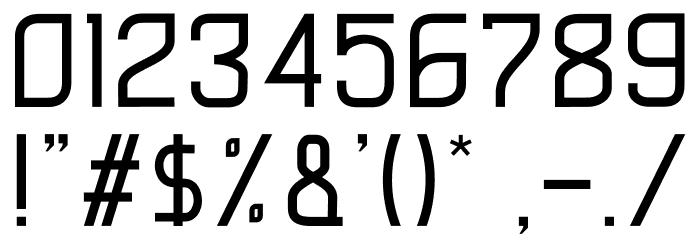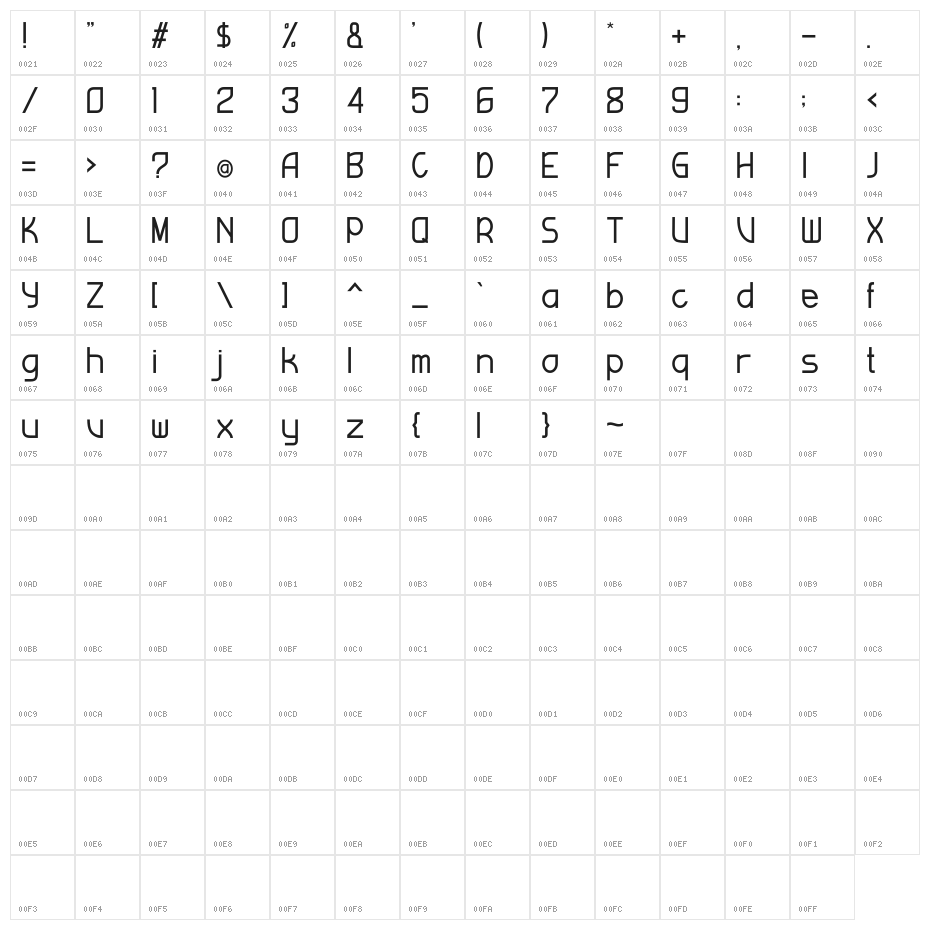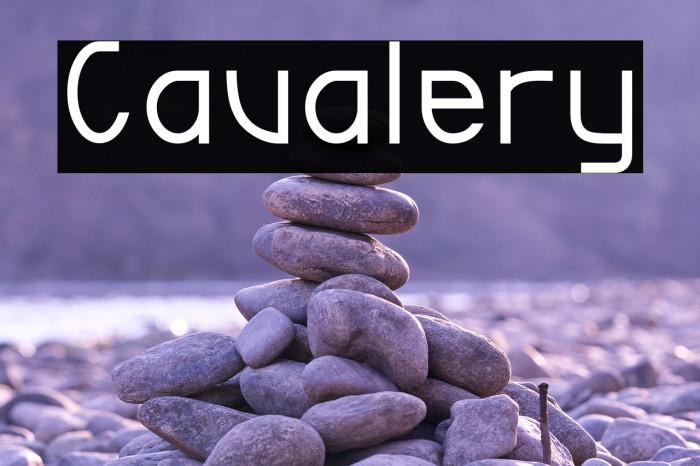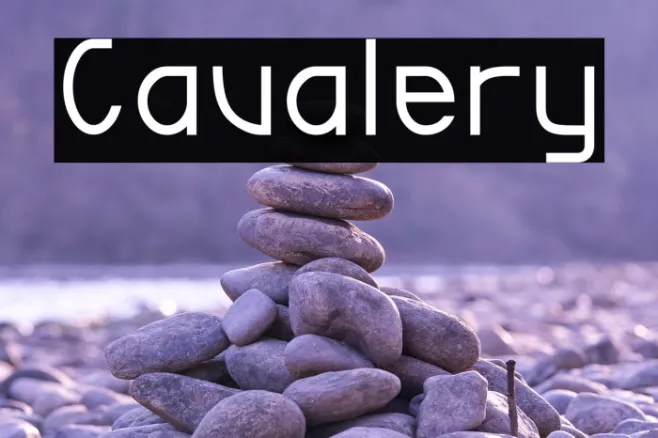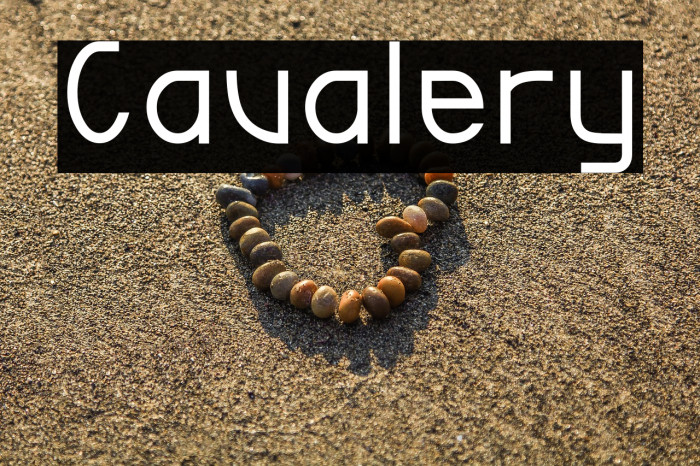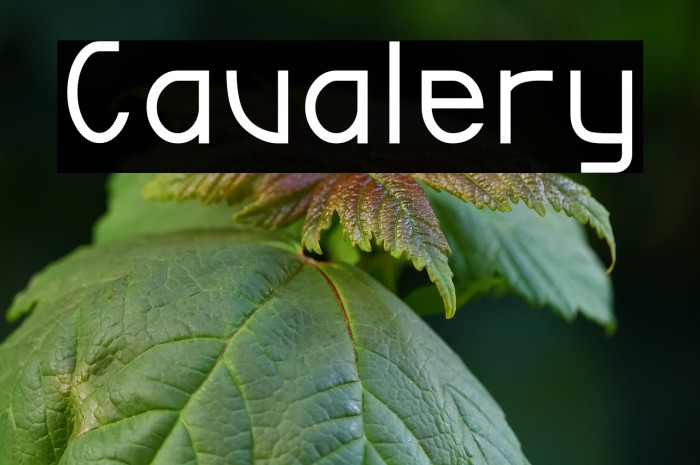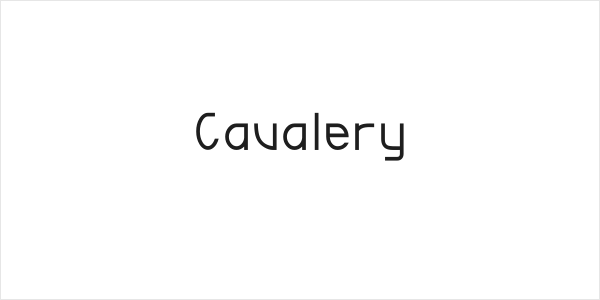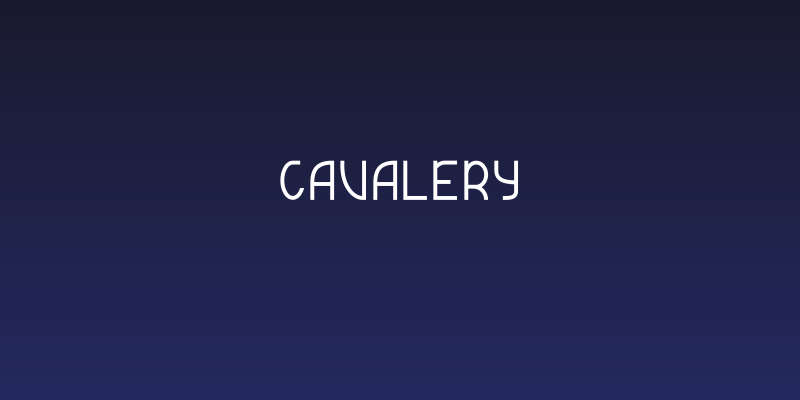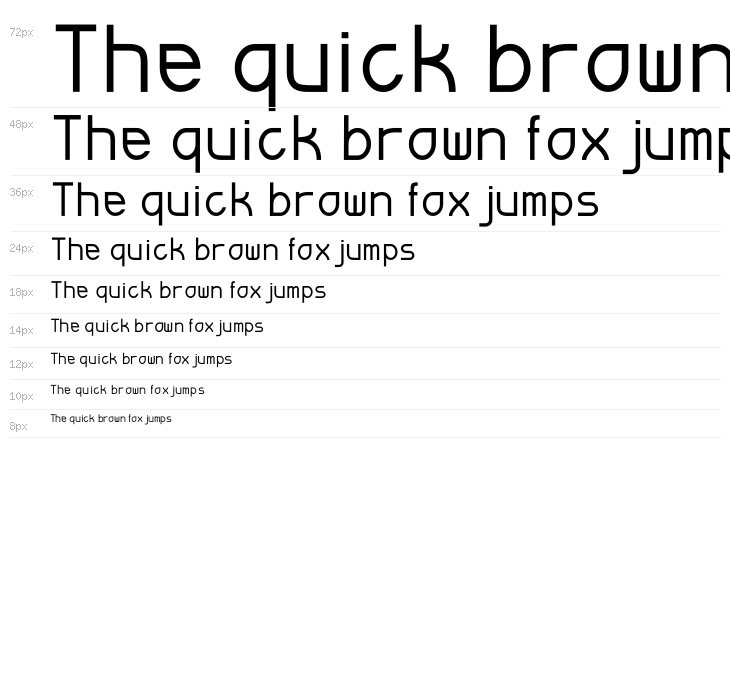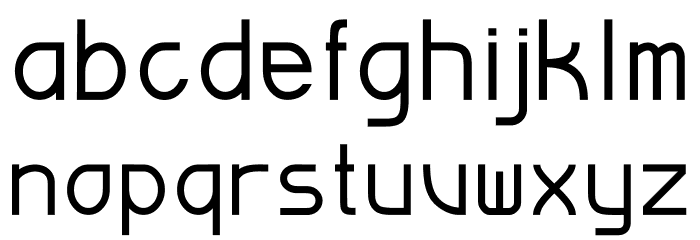
Cavalery Font
Cavalery Description
This font features a modern and geometric design with clean lines and a structured appearance. The characters are uniform in width, giving it a monospaced feel, although it is not strictly monospaced. The uppercase letters are bold and assertive, while the lowercase letters maintain a consistent style with slightly rounded edges. The numerals are clear and easy to read, matching the overall aesthetic of the font. Special characters are well-integrated, maintaining the geometric theme. This font is versatile, suitable for both digital and print media, and can be used to create a contemporary and professional look.